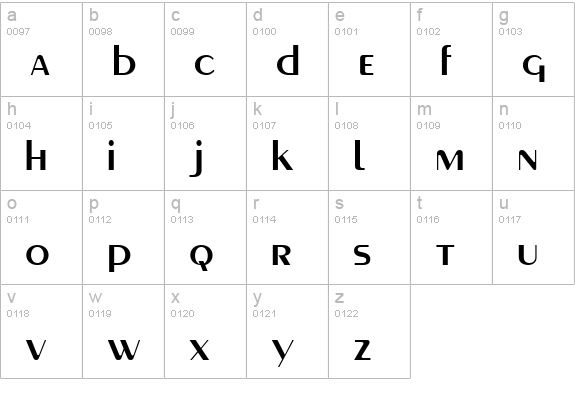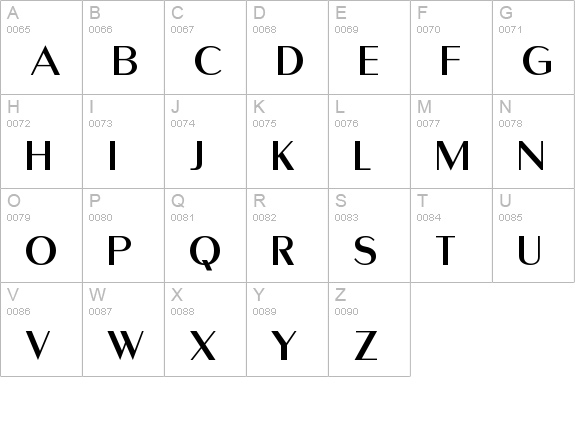
Paquete SSi Font Details
Introducing the visually captivating Paquete SSi font, a truly remarkable typeface that effortlessly combines elegance with a modern twist. With its unique design elements and sleek lines, Paquete SSi is guaranteed to make a lasting impression on any project it graces. This font boasts a wide range of versatile characters, making it perfect for various design purposes. Whether you're creating captivating logos, eye-catching headlines, or stunning typography for your website, Paquete SSi has got you covered. One of the most remarkable aspects of Paquete SSi font is that it is freely available to download at FontsMarket.com. This means that you can bring this exceptional font to life in your designs without any cost or restrictions. With its accessibility, Paquete SSi font opens up a world of creative possibilities for both professional designers and enthusiasts alike. The intricate details and refined craftsmanship of Paquete SSi truly set it apart from other fonts. Its clean, crisp lines ensure optimal legibility, while its subtle curves and unique letterforms add a touch of sophistication to any composition. Paquete SSi's versatility shines through in both print and digital formats, making it an ideal choice for projects of all sizes and mediums. Whether you're aiming to convey a sense of elegance, modernity, or professionalism, Paquete SSi font is the perfect companion. Its timeless appeal and attention to detail make it a standout choice for any design endeavor. Download Paquete SSi font today from FontsMarket.com and elevate your creative projects to new heights. Discover the freedom and flexibility that this exceptional font offers, and let your imagination run wild.